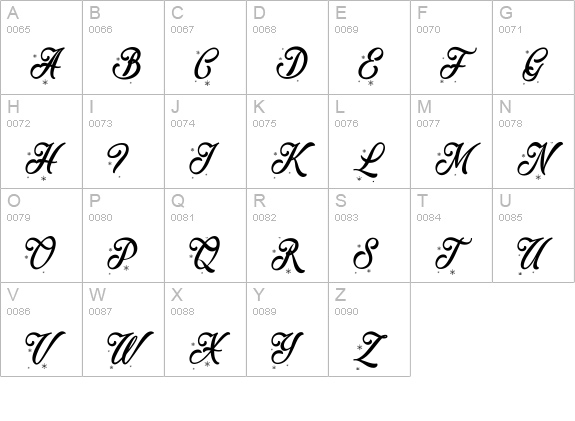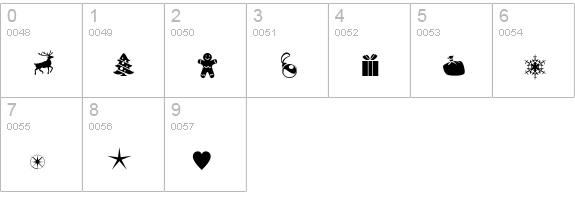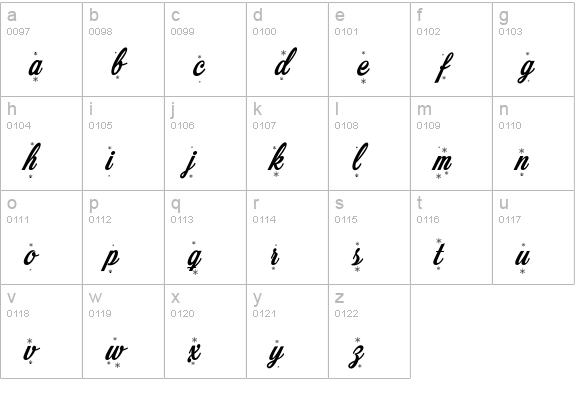
Merry Christmas Flake Font Details
Introducing Merry Christmas Flake, a whimsical and festive font that captures the magic and joy of the holiday season. With its playful and intricate design, this font is perfect for adding a touch of holiday cheer to your projects. Merry Christmas Flake is a unique and stylish font that features delicate snowflakes and elegant letterforms. Each character is carefully crafted to resemble a beautiful snowflake, making this font a truly eye-catching and enchanting choice. Whether you're creating holiday greeting cards, invitations, or any other Christmas-themed designs, Merry Christmas Flake will add a touch of elegance and charm. Its versatility allows it to be used for both formal and casual projects, making it the perfect choice for all your creative endeavors. And the best part? Merry Christmas Flake is completely free! You can easily download this font at FontsMarket.com, where it is readily available for all your design needs. So spread the holiday cheer and give your projects a festive makeover with Merry Christmas Flake.